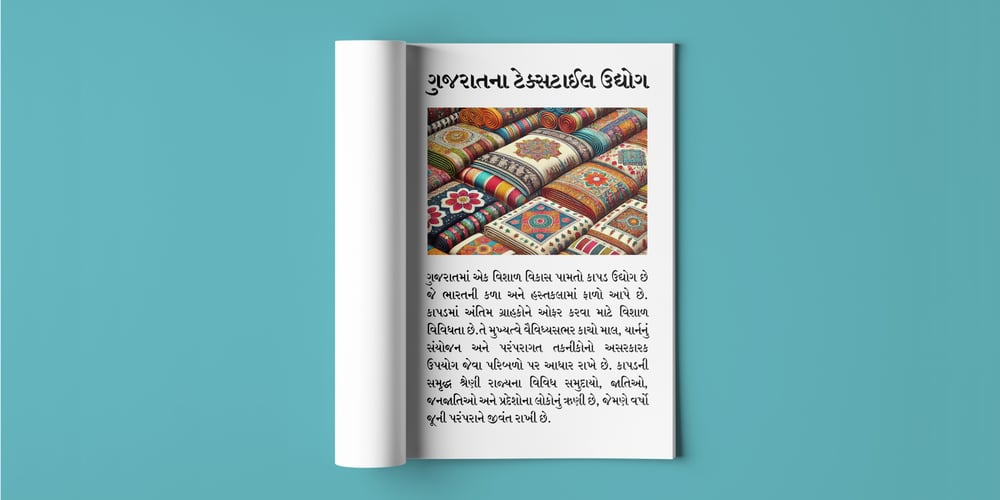
Shree Gujarati 0750
Shree Gujarati 0750 font
Shree Gujarati 0750 Font Family was designed by Modular Infotech and published by Modular InfoTech. Shree Gujarati 0750 contains 6 styles and family package options. ShreeGuj0750 is a Gujarati Text font widely used in Newspapers and Magazines. In India, it is predominantly used by news agencies and custom publications. This font family offers three weights: Regular, Bold and Black. It supports various conjuncts, making it ideal for producing visually appealing text articles. The font is designed to deliver excellent readability, even at small point sizes.